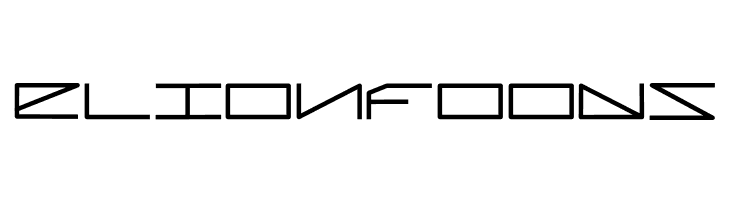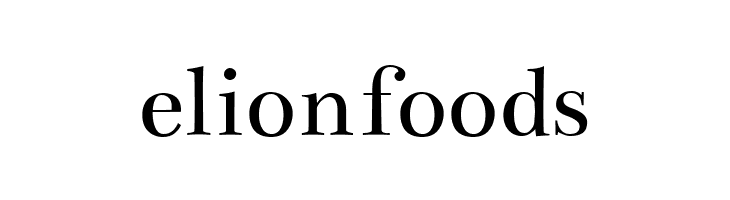
An elegant and ornate script font with intricate swirls and flourishes.
A futuristic, angular font with a geometric and modern design.
A playful, hand-drawn style with tall, narrow letters and a whimsical feel.
A bold, edgy font with sharp, angular lines and a rebellious style.
A bold, decorative font with cursive-like strokes and elegant flourishes.
A classic serif font with elegant strokes and medium contrast.